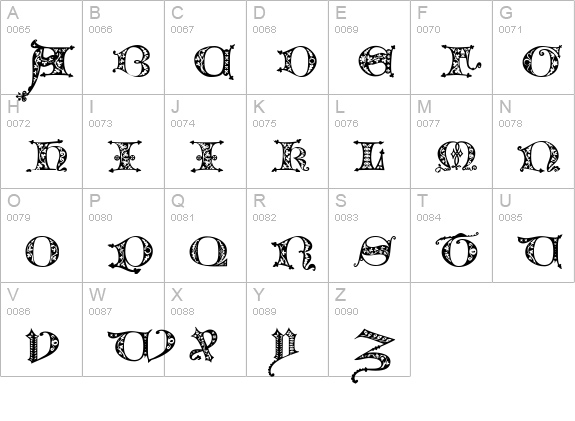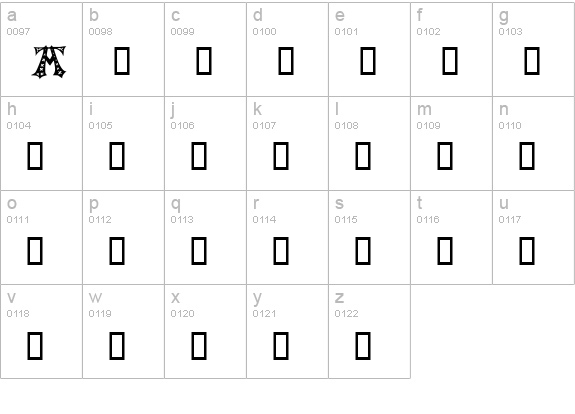
Florimelâ„¢ Font Details
Florimel™ font is a stunning and elegant typeface that exudes sophistication and charm. With its delicate curves and graceful letterforms, Florimel™ is the perfect choice for projects that require a touch of beauty and style. Whether you're designing wedding invitations, branding materials, or elegant packaging, Florimel™ will elevate your designs to new heights. What sets Florimel™ apart is not just its timeless beauty, but also the fact that it is available for free! That's right, you can download this exquisite font for no cost at FontsMarket.com. So why wait? Add Florimel™ to your font collection today and let your creativity shine with this exceptional typeface.